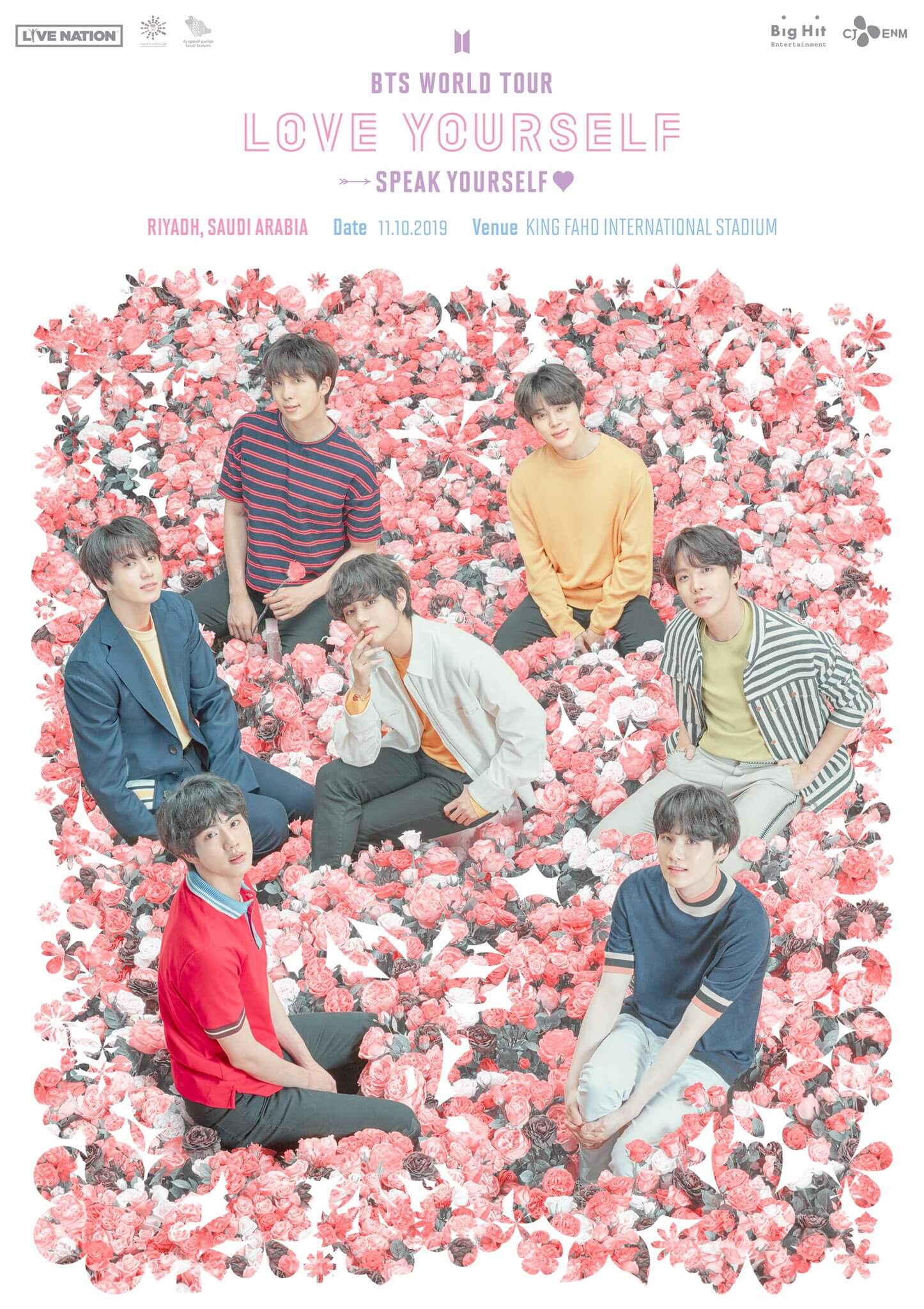
Love Yourself Tour Font
Fonts in UseThe BTS Love Yourself Tour was a worldwide concert tour held by the South Korean boy band BTS, in support of their Love Yourself album series. The tour ran from August 2018 to April 2019, visiting 17 countries and performing to over 1.6 million fans.
It's possible that the lettering for "Love Yourself" was created by hand or derived from a pre-existing sans-serif typeface like Ciutadella. For the secondary sans-serif in the logo, Solano Gothic by Mark van Bronkhorst was used.